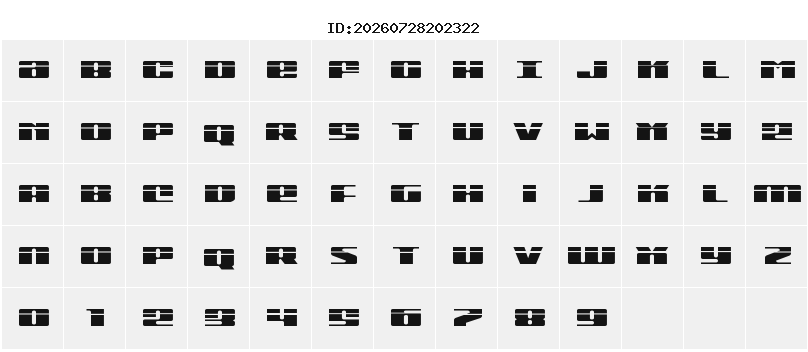
Michigan Expanded Laser Preview
• Font Name: Michigan Expanded Laser
• Font Style: Expanded
• Full Font Name: Michigan Expanded Laser
About Michigan Expanded Laser.ttf
Michigan Expanded Laser.ttf is a modern, elegant sans-serif font designed for ultimate readability and visual harmony. Perfect for branding, headlines, web design, and print materials.